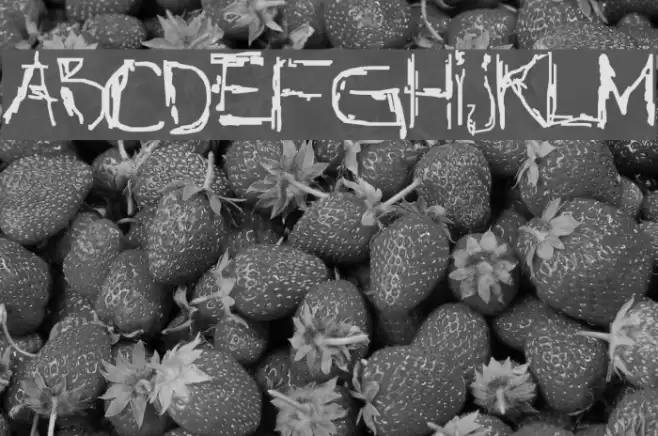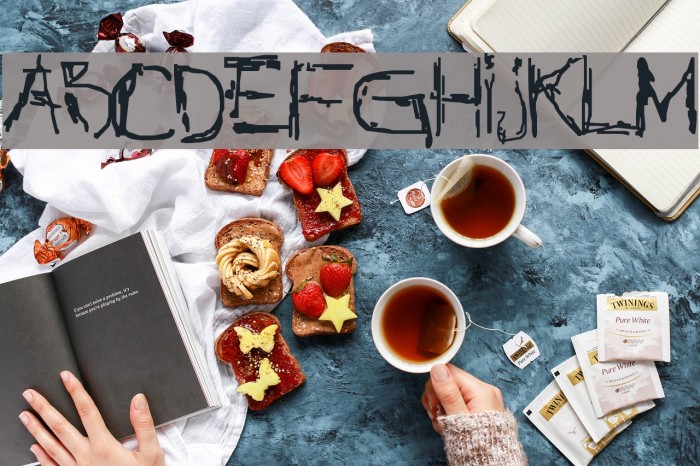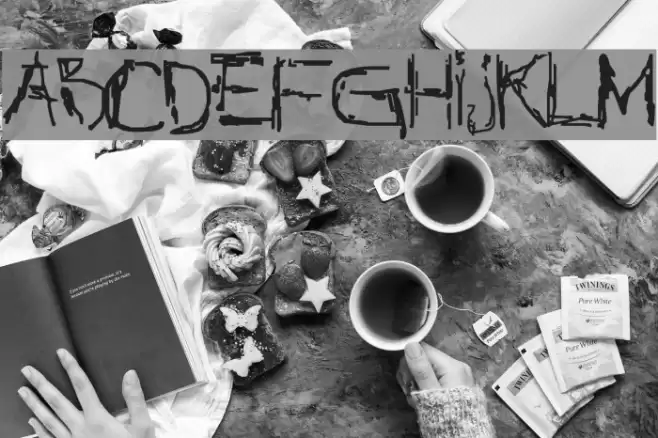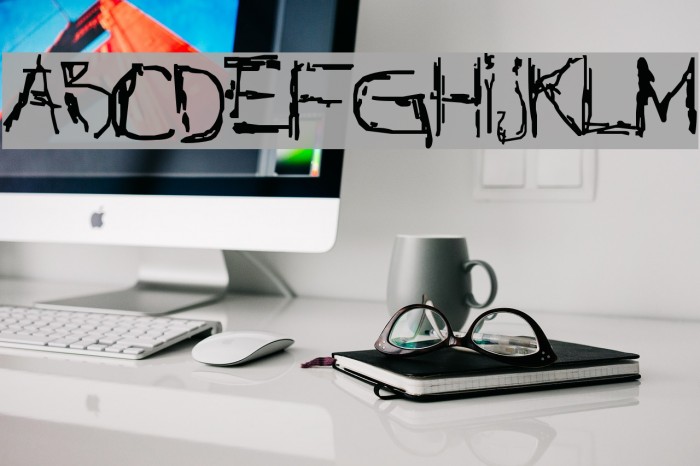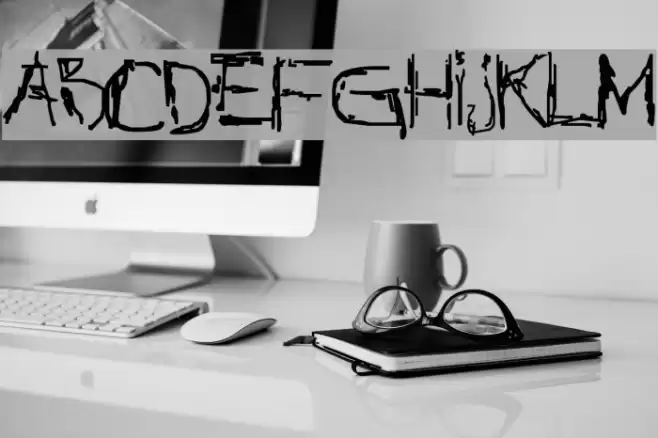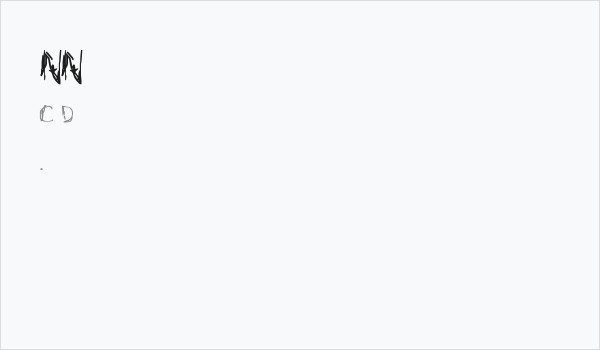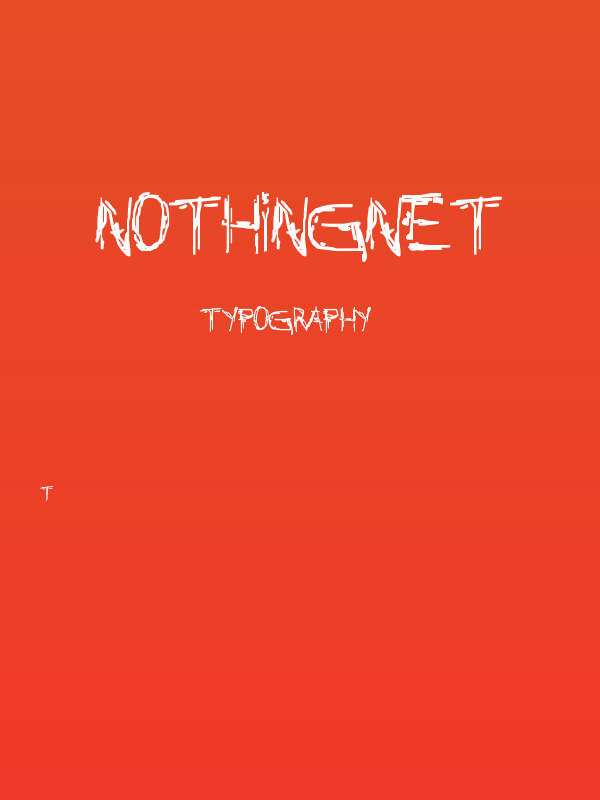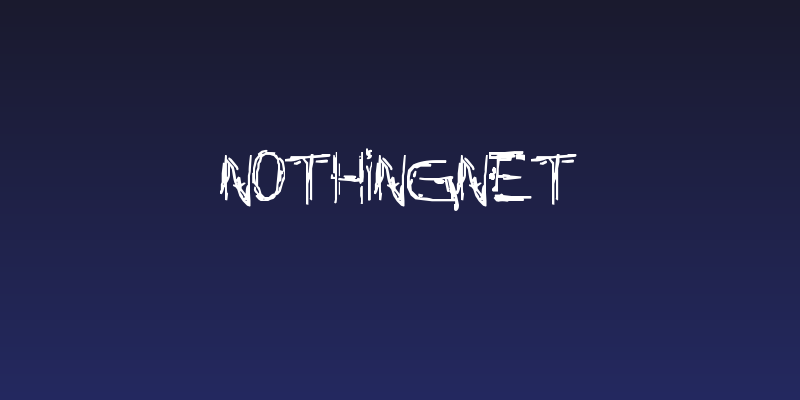
NothingNet Font
NothingNet Description
This font features a highly decorative and distressed style, with each letter appearing as if it has been scratched or eroded. The uppercase letters are bold and irregular, with jagged edges and uneven lines that give a chaotic and edgy appearance. The design is reminiscent of graffiti or urban decay, making it stand out with its unique texture and artistic flair. The font lacks lowercase letters, numerals, and special characters, focusing solely on uppercase alphabets. Its unconventional style makes it suitable for creative and bold design projects where a strong visual impact is desired.
| Proposed Projects | Ideal for album covers, street art-inspired designs, posters, and edgy branding projects. |